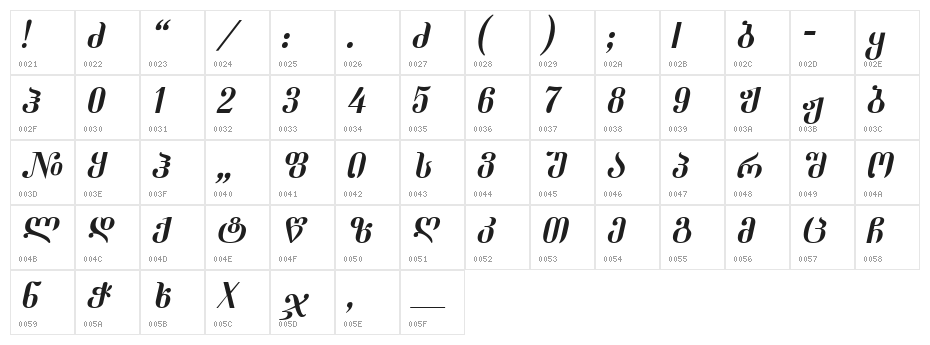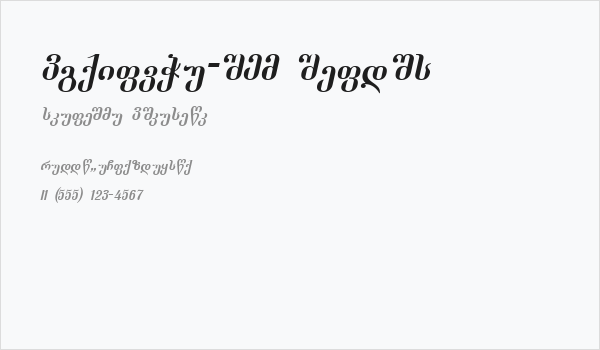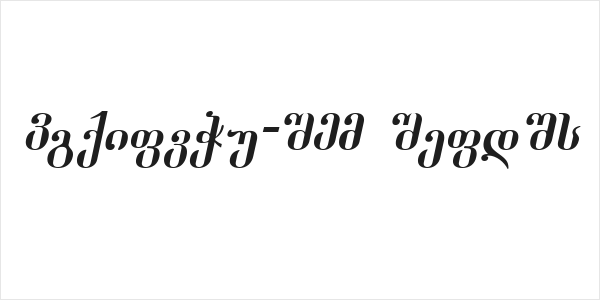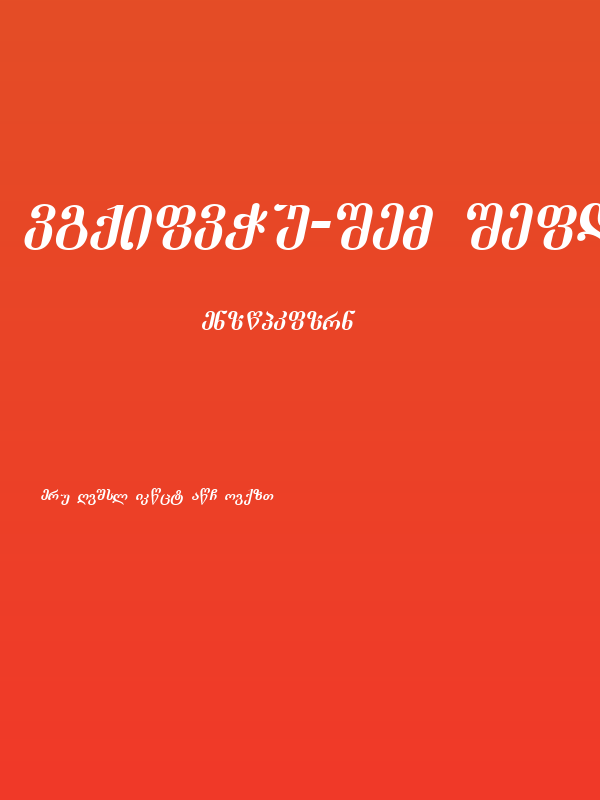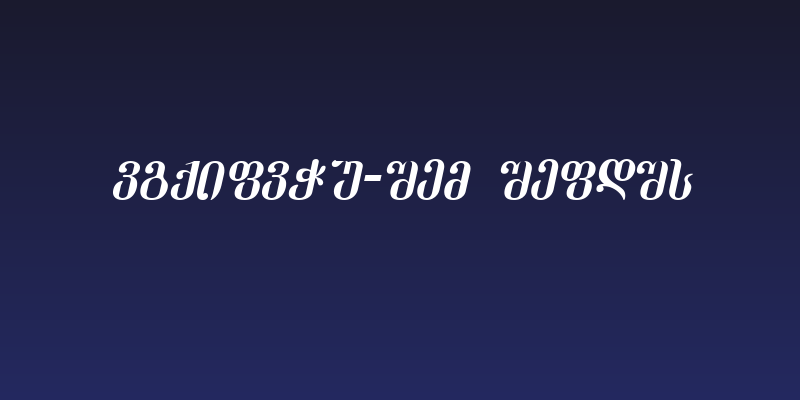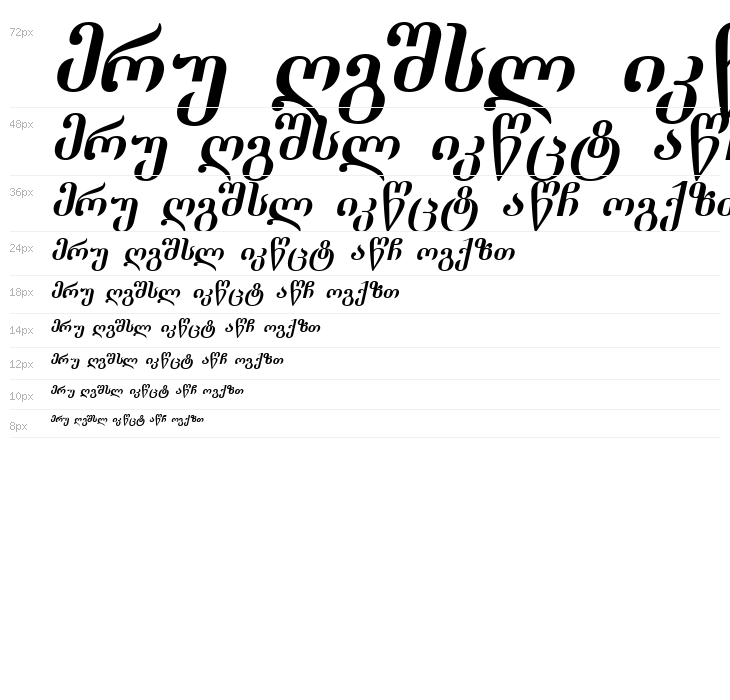
Dumbadze-ITV Italic Font
Dumbadze-ITV Italic Description
This font features a unique and elegant script style with a flowing, cursive design. The characters exhibit a distinct slant, enhancing the italicized appearance. Each letter is crafted with smooth curves and subtle flourishes, giving it a sophisticated and artistic feel. The numbers and special characters maintain the same stylistic elements, ensuring consistency throughout. The font's overall aesthetic is both decorative and refined, making it suitable for creative projects that require a touch of elegance.